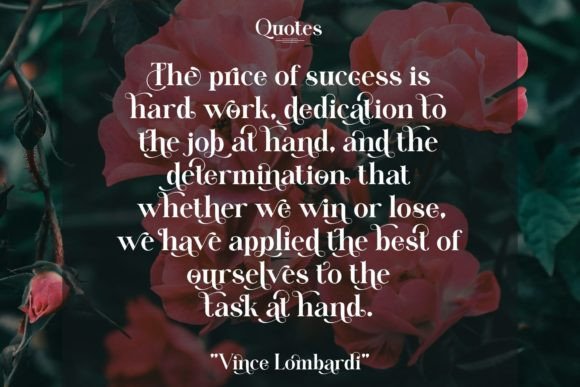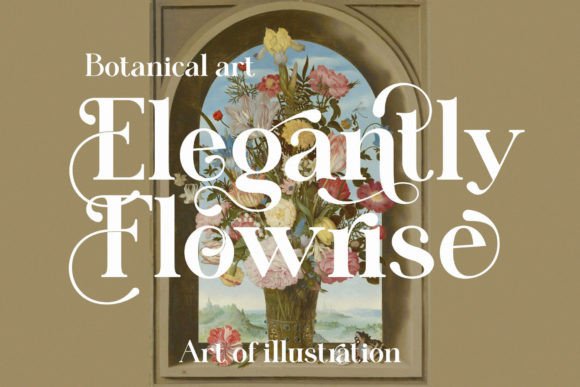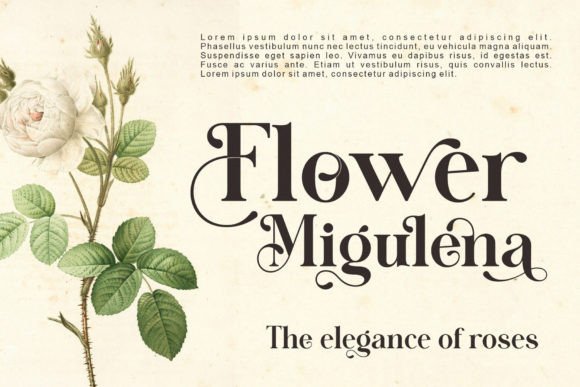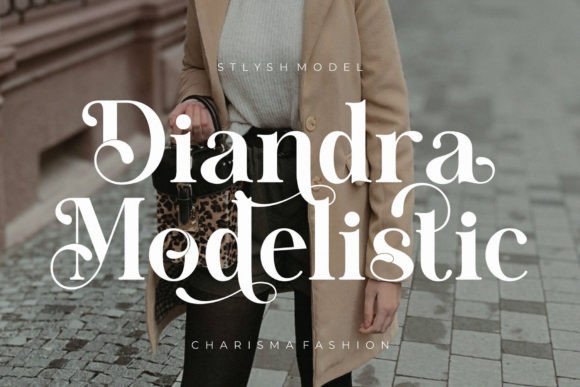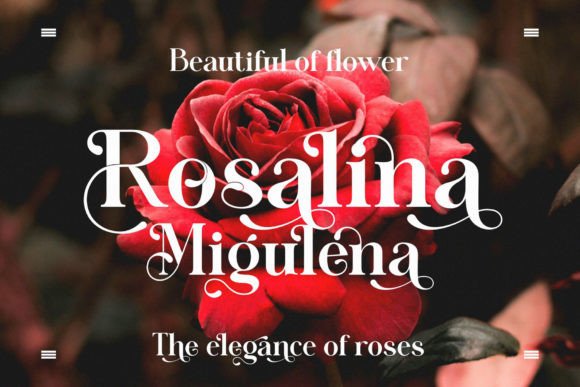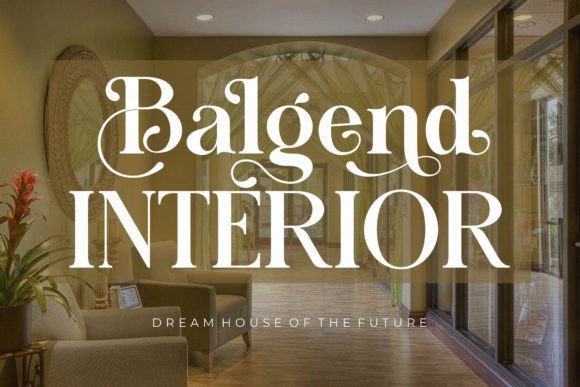
Fristen Brainte: The Elegant Ligature Serif Typeface for Sophisticated Designs
In the world of typography, a well-crafted font can elevate a design from ordinary to extraordinary. For designers and crafters seeking a typeface that exudes elegance and sophistication, Fristen Brainte is an exceptional choice. Inspired by the famous minimalist logo, Fristen Brainte is a ligature serif typeface that brings a touch of refinement to various design applications.
The Inspiration Behind Fristen Brainte
Fristen Brainte’s design is rooted in the principles of minimalism, a concept that emphasizes simplicity and clarity. The font’s creator drew inspiration from a renowned minimalist logo, aiming to capture its essence and translate it into a versatile typeface. The result is a font that embodies the perfect balance between form and function.
Key Features of Fristen Brainte
Fristen Brainte boasts several key features that make it an attractive choice for designers:
• Ligature Serif: Fristen Brainte’s ligature serif design ensures that the font flows smoothly, creating a harmonious visual experience.
• Elegant Curves: The font’s curves are meticulously crafted to convey a sense of sophistication and luxury.
• Versatility: Fristen Brainte is suitable for a wide range of design applications, from templates and brochures to logos and branding.
Design Applications for Fristen Brainte
Fristen Brainte’s versatility makes it an excellent choice for various design projects, including:
• Templates: Create stunning templates for presentations, reports, or social media content.
• Brochures: Design eye-catching brochures that showcase your products or services.
• Videos: Use Fristen Brainte as a title font or for lowerings in your video productions.
• Advertising and Branding: Develop a strong brand identity with Fristen Brainte’s elegant and sophisticated design.
• Logos: Create memorable logos that make a lasting impression.
• Invitations: Design beautiful invitations for special occasions, such as weddings or parties.
• Layout Designs: Use Fristen Brainte to add a touch of elegance to your layout designs.
• Elegant Crafting: Perfect for crafting projects that require a sophisticated font.
• Beauty Designs: Ideal for beauty-related designs, such as makeup tutorials or product packaging.
Why Choose Fristen Brainte?
Fristen Brainte offers several advantages that make it a top choice for designers and crafters:
• Unique Design: Fristen Brainte’s distinctive design sets it apart from other typefaces.
• Ease of Use: The font is easy to read and works well in various design contexts.
• High-Quality: Fristen Brainte is a high-quality font that will elevate your designs.
Author Alfinart
In conclusion, Fristen Brainte is an exceptional ligature serif typeface that brings elegance and sophistication to various design applications. Its versatility, unique design, and high-quality craftsmanship make it an excellent choice for designers and crafters seeking to create stunning designs. Whether you’re working on a template, brochure, logo, or branding project, Fristen Brainte is sure to impress.